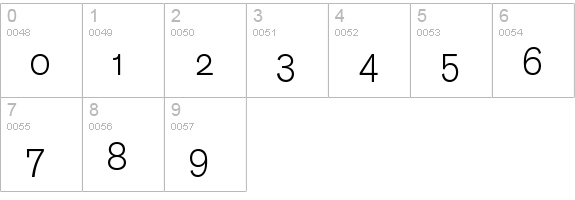
Berthold Akzidenz Grotesk BE Light with Oldstyle Figures Font Details
Berthold Akzidenz Grotesk BE Light with Oldstyle Figures is a refined, elegant variant in the Berthold typeface family \xE2\x80\x94 well suited to elegant body text, refined sub-headings, and luxury branding.
Berthold Akzidenz Grotesk BE Light with Oldstyle Figures is a timeless and versatile typeface that exudes elegance and sophistication. With its clean lines and classic design, this font is perfect for a wide range of design projects, from branding to editorial layouts. The Oldstyle Figures add a touch of vintage charm, making this font a unique choice for both traditional and modern applications. And the best part? Berthold Akzidenz Grotesk BE Light with Oldstyle Figures is available for free download at FontsMarket.com. Whether you're a seasoned designer looking to add a new font to your collection or a beginner searching for the perfect typeface for your project, this font is a must-have. Download it today and elevate your designs with this beautiful and versatile typeface.